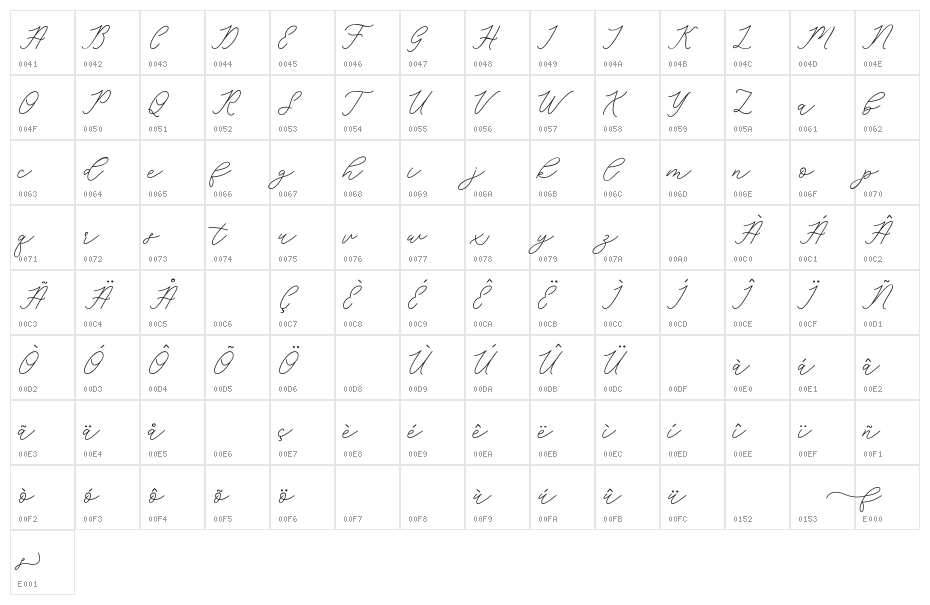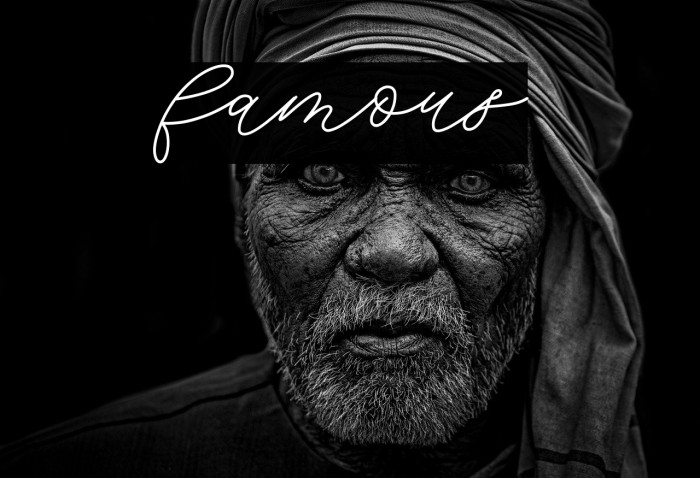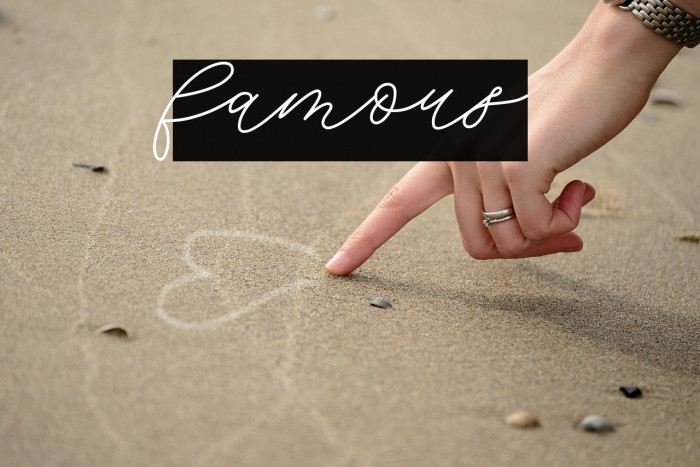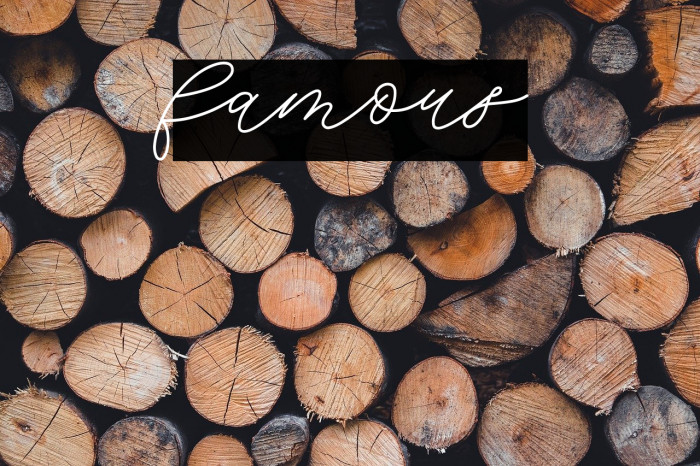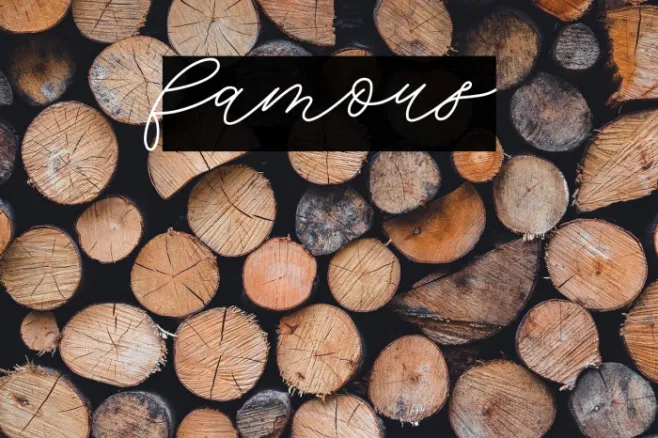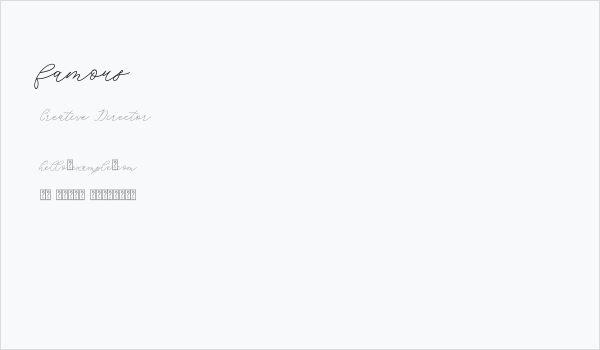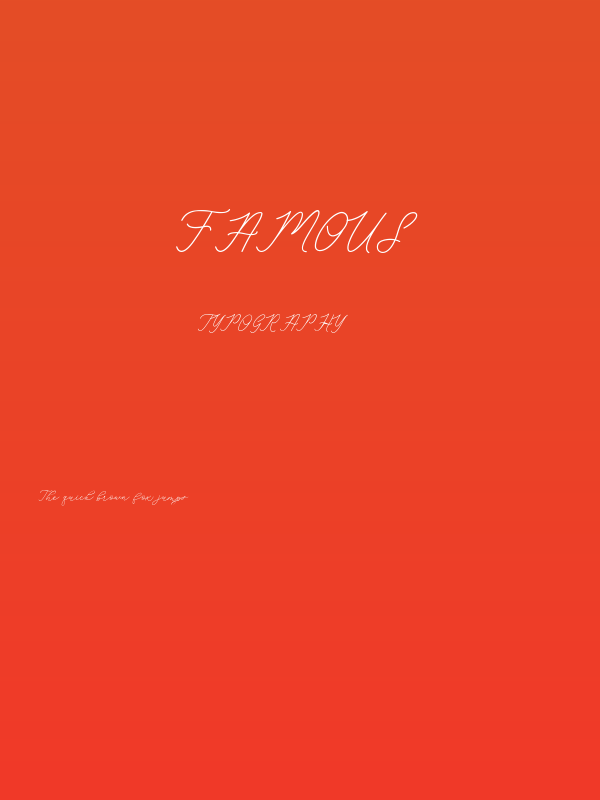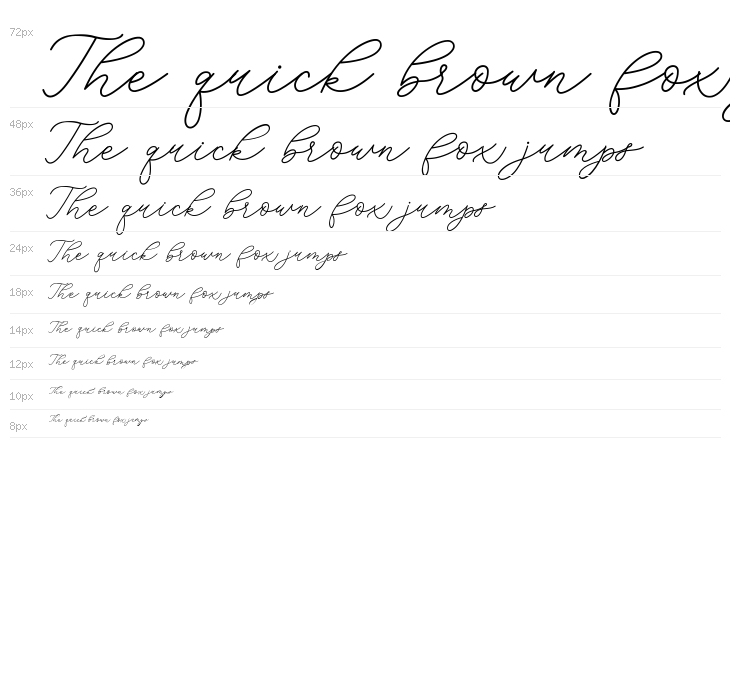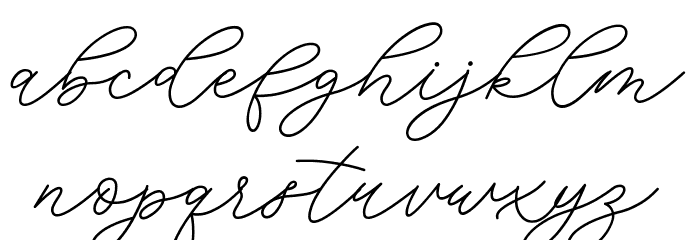
famous Font
famous Description
This elegant script font features fluid, cursive strokes that mimic the natural flow of handwriting. The letters are gracefully connected, creating a seamless and sophisticated appearance. The uppercase letters are slightly more ornate, with flourishes that add a touch of flair, while the lowercase letters maintain a consistent, flowing style. The font exudes a sense of elegance and refinement, making it ideal for formal invitations, branding, and other projects that require a personal touch. The overall design is balanced and harmonious, with each character carefully crafted to ensure readability and aesthetic appeal.